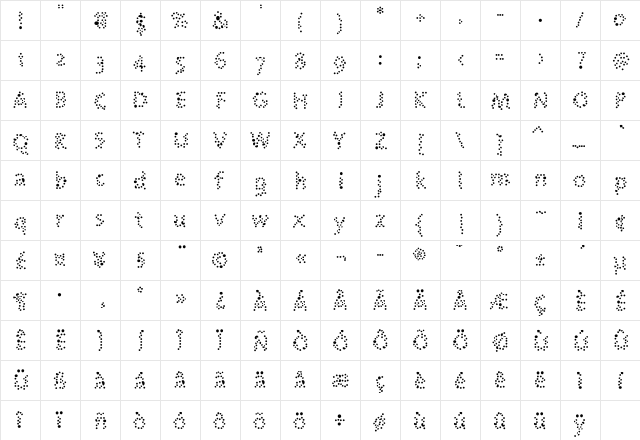
NebulaeVeryCoarse Medium
| Foundry | Luc(as) de Groot |
Design Context for NebulaeVeryCoarse Typeface
NebulaeVeryCoarse is a composed and adaptable typeface that performs quietly and consistently across a wide range of design contexts.